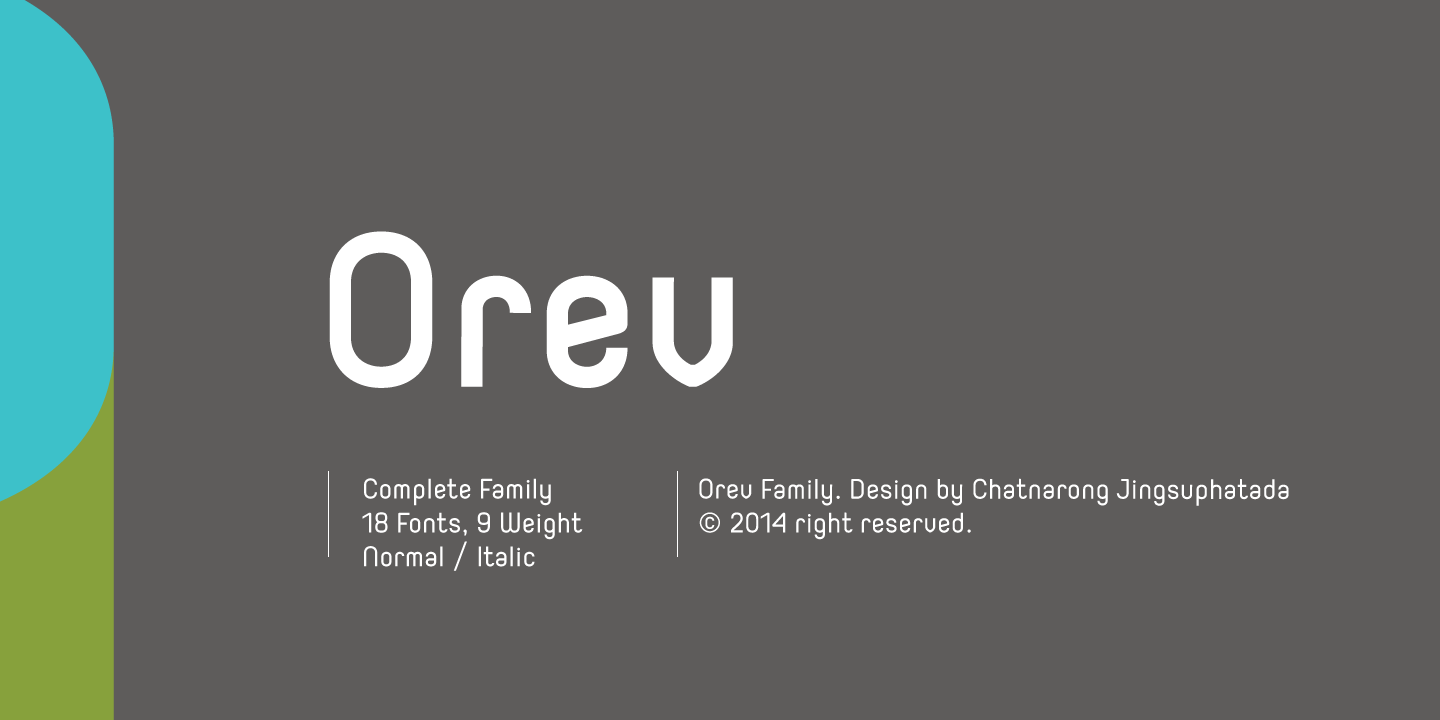
Orev Font is a fantastic geometric sans-serif typeface that combines a modern, clean look with a playful and friendly character. Its rounded edges and open letterforms make it highly approachable and inviting, making it a great choice for brands that want to convey warmth and creativity. This font is perfect for a wide range of applications, including children's book titles, branding for creative agencies, logos, social media posts, and packaging for artisanal products. Its legibility and charm also make it an excellent option for website body text and UI design, ensuring a pleasant user experience. The Orev Font Free Download is an excellent way to see how its unique personality can enhance your design projects.
What makes Orev Font so exciting is its ability to be both functional and expressive. While its geometric foundation provides a sense of order and clarity, the subtle curves and rounded terminals give it a distinctive personality that sets it apart from more rigid sans-serif fonts. This duality allows it to be used in serious contexts without feeling cold or sterile, and in playful contexts without losing its professional integrity. It's a versatile tool that can adapt to different tones and messages, from a corporate presentation to a whimsical poster. The meticulous design ensures that the font maintains its readability and unique character at various sizes, making it a reliable choice for both digital and print media.
The Orev Font family is designed to offer maximum versatility and creative control. It comes with a variety of weights, including Orev Light, Orev Regular, Orev Medium, and Orev Bold. This range allows you to establish a strong typographic hierarchy in your designs. You can use the lighter weights for subtle descriptions and captions, while the bolder weights are perfect for headlines and key branding elements that need to grab attention. The cohesive nature of the font family ensures that all your text elements will work together harmoniously, creating a polished and professional look.
This font is more than just a typeface; it’s an asset for designers who want to create designs that are both beautiful and effective. Its friendly and modern vibe makes it a valuable addition to any designer's toolkit.